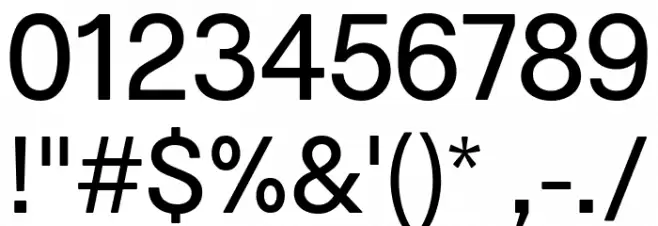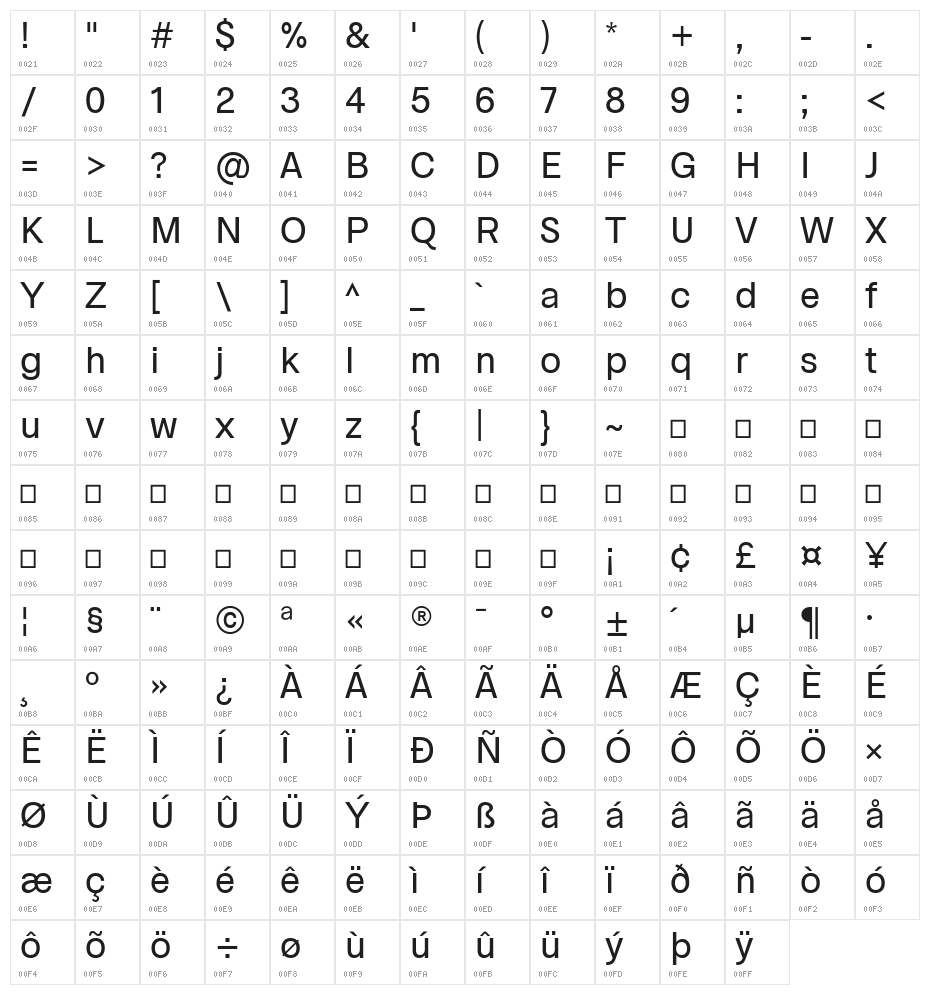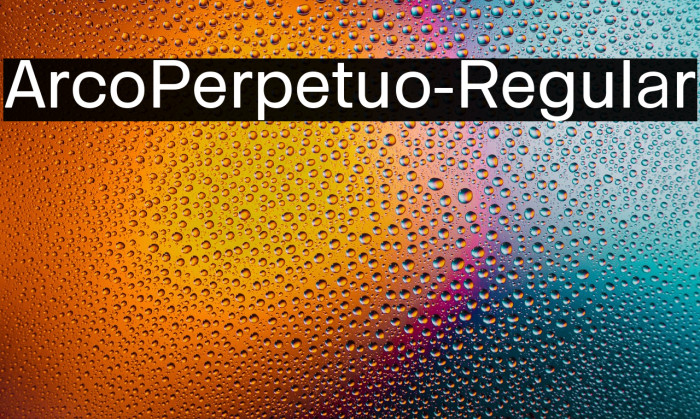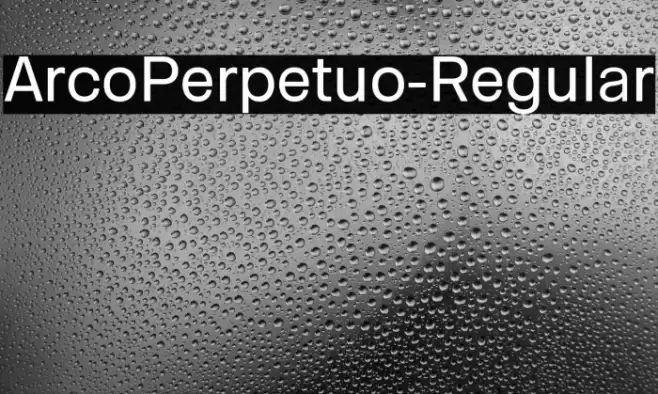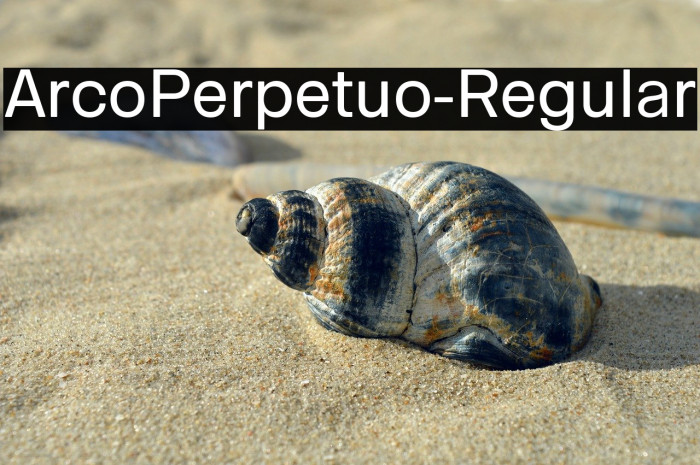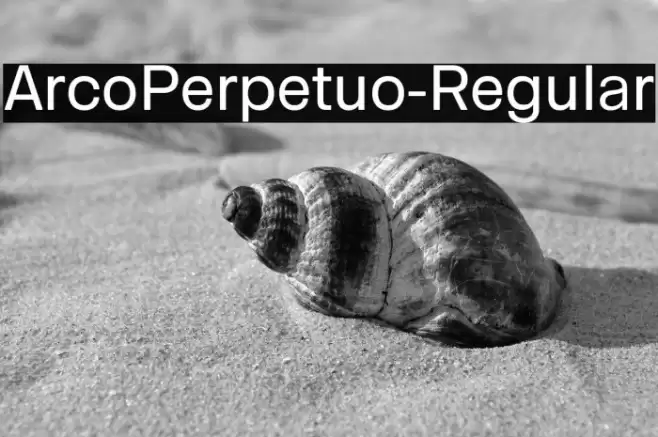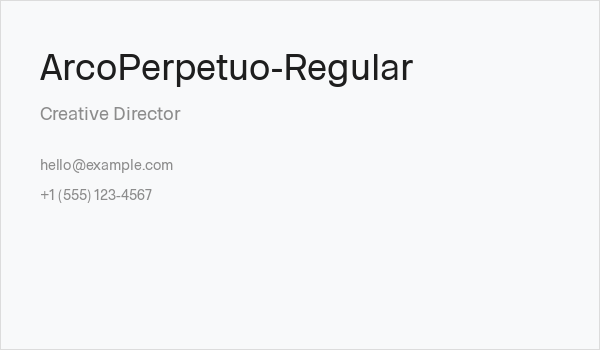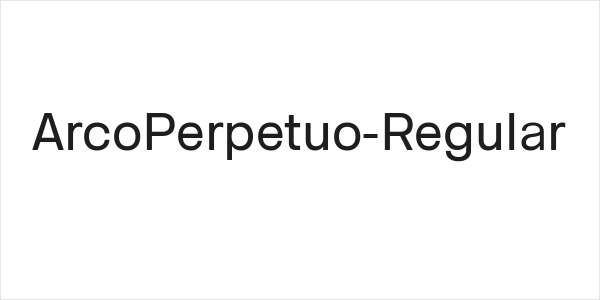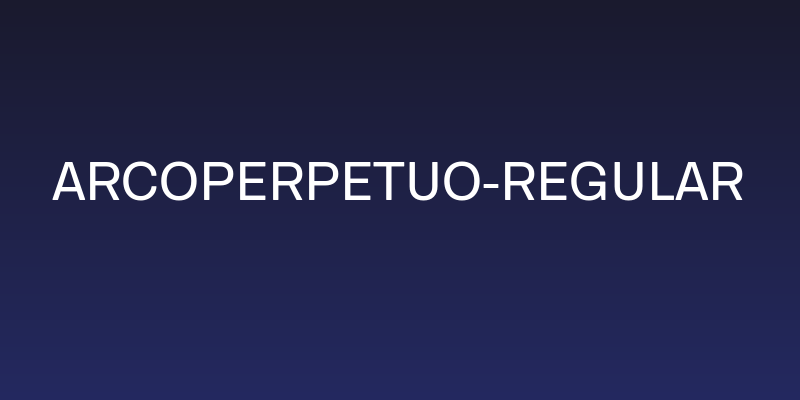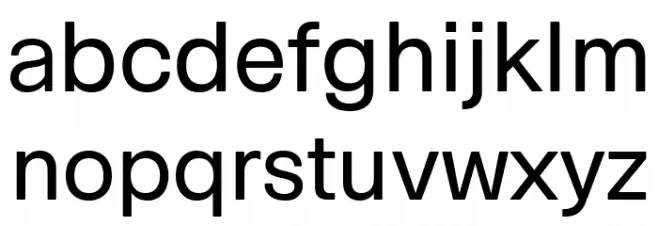
ArcoPerpetuo-Regular Font
ArcoPerpetuo-Regular Description
This font features a clean and modern sans-serif design, characterized by its simplicity and readability. The letterforms are uniform with a consistent stroke width, providing a balanced and harmonious appearance. The uppercase and lowercase letters are well-proportioned, with a slight geometric influence that adds to its contemporary feel. The numerals are clear and distinct, making them easily legible. Special characters are included, maintaining the same aesthetic consistency. This font is versatile, suitable for a variety of applications where clarity and modernity are desired.
| Proposed Projects | Ideal for branding, web design, corporate materials, and editorial layouts. |